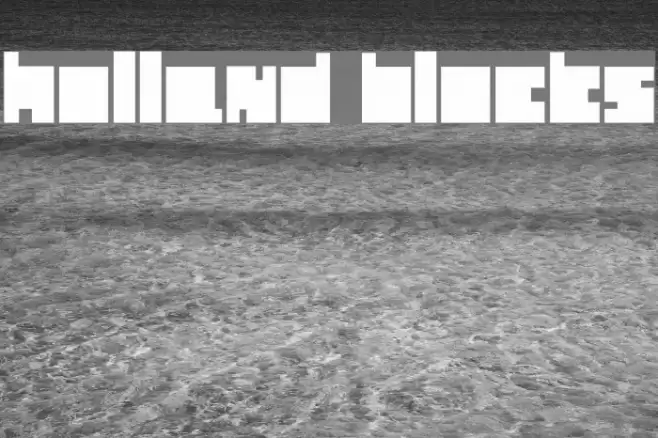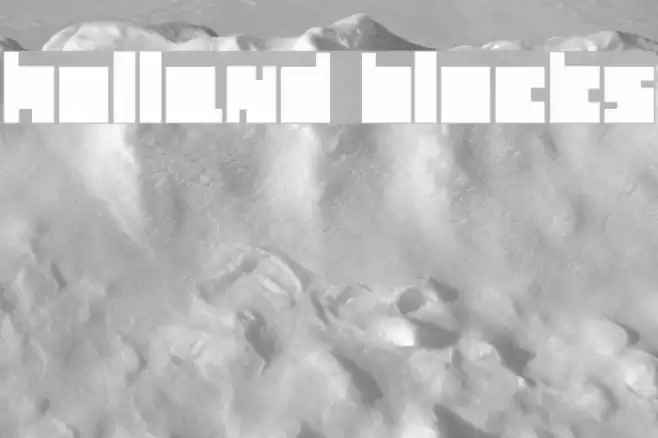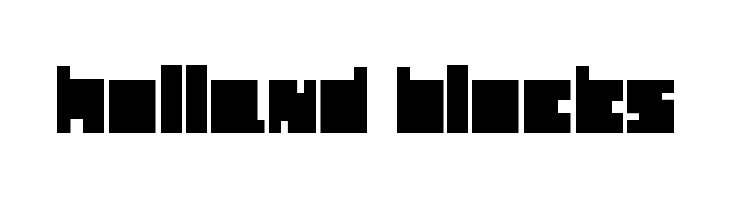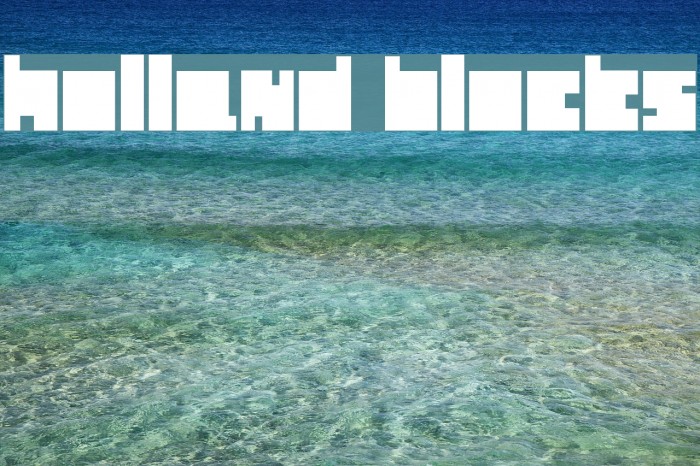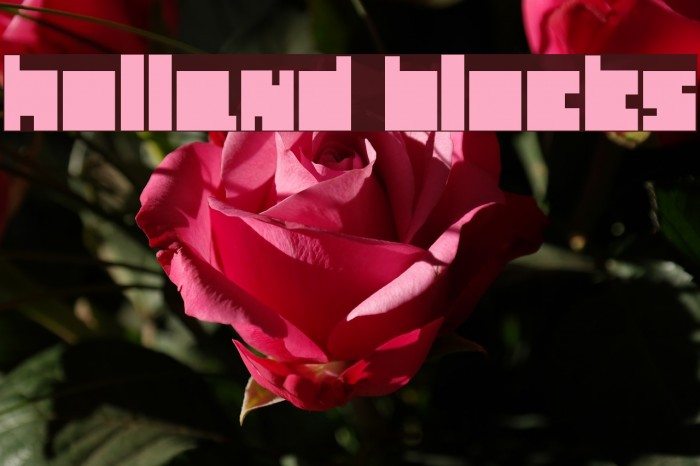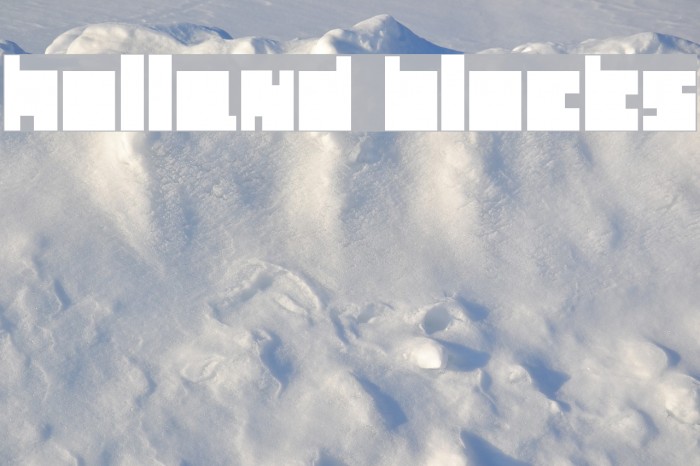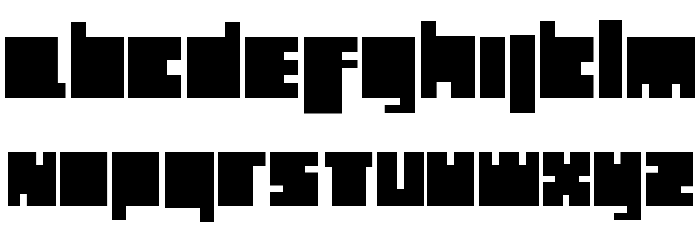
Holland Blocks Font
Holland Blocks Description
This font features a bold, blocky design with a distinctly geometric and modular appearance. Each character is constructed with sharp, straight edges and uniform thickness, creating a cohesive and impactful visual style. The uppercase and lowercase letters maintain a consistent height, contributing to a monospaced feel, although they are not strictly monospaced. The font's design is reminiscent of digital or pixel art, making it ideal for projects that require a retro or tech-inspired aesthetic. Its strong, solid form ensures excellent readability at larger sizes, making it suitable for headlines or display purposes.
A bold, geometric font with a blocky, pixel-art style from Futuristic fonts.
- Proposed Projects: Ideal for retro-themed designs, video game graphics, tech branding, and digital art projects.
- Use Case: Headlines, Logos, Display text